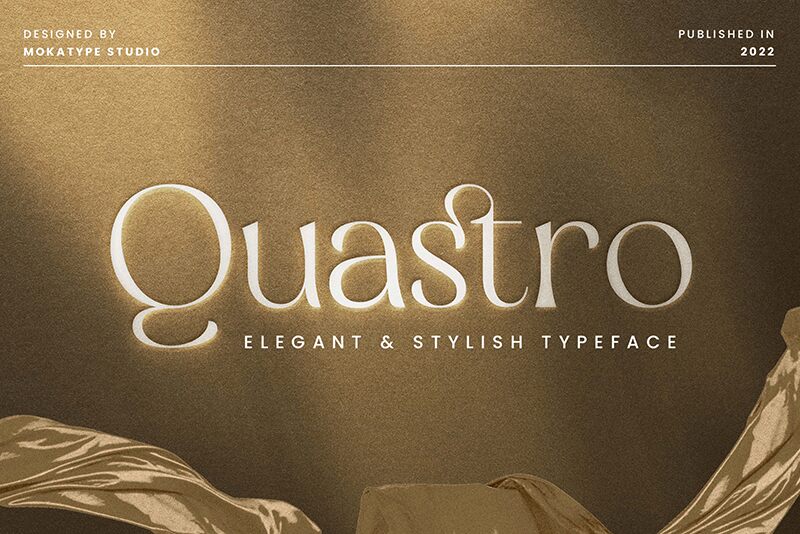
Quastro, envisioned by the talented Almarkhatype, is a serif font that delicately balances classical elegance with contemporary flair. Its semi-light weight imbues it with a graceful versatility that is both visually arresting and functionally robust.
The Quastro font's serifs add a touch of sophistication, making it an excellent choice for editorial work where readability and style go hand in hand. The subtle contrast in stroke thickness gives it a modern edge that can elevate branding projects or sophisticated web design.
Notably, Quastro's aesthetic appeal lies in its ability to marry the timeless beauty of traditional serifs with the clean lines expected in modern typography. This makes it particularly suitable for creative endeavors that require a nuanced touch-be it book typesetting, logo creation, or crafting elegant invitations.
With its serene yet assertive presence on the page or screen, Quastro promises to infuse your next project with both character and clarity.